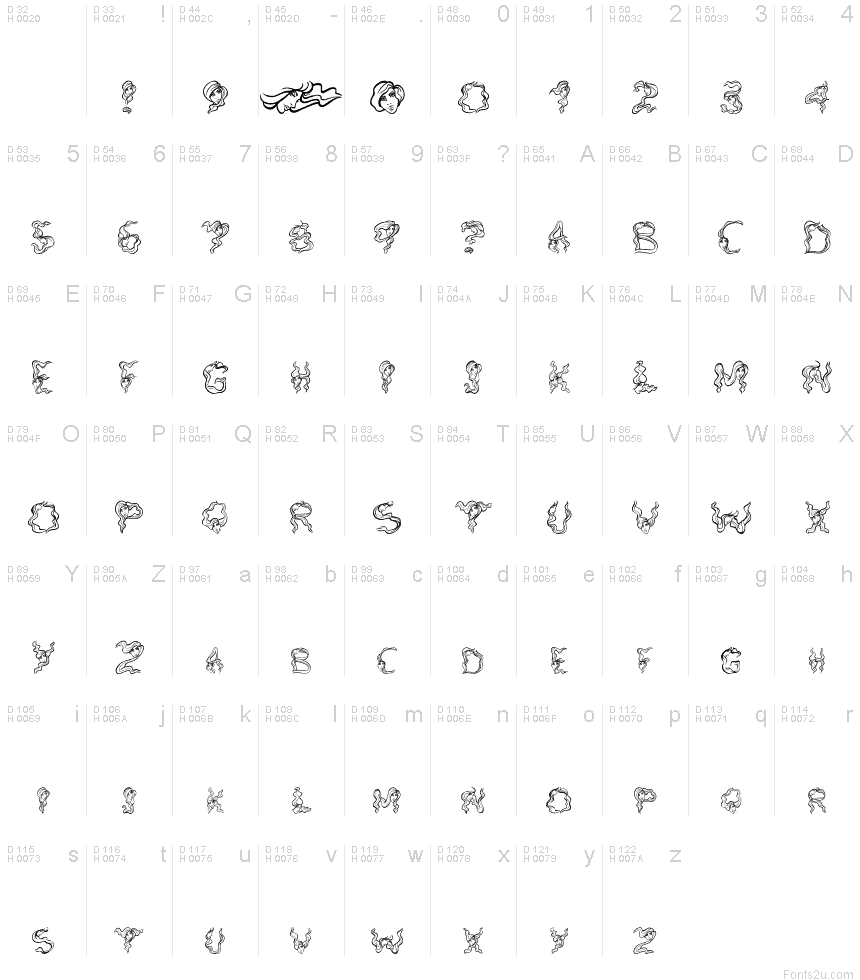
AlphaWomanHair
AlphaWomanHair font by Beeline Fonted by Miss Claude is a free cartoon display typeface that turns every letter into a wild sculpture of flowing hair and curvy silhouettes. The strokes twist, loop, and tangle like ink-drawn locks, giving words a hand-sketched, slightly chaotic energy that still reads clearly at larger sizes. It feels playful and a bit rebellious, like doodles that took over the page and refused to sit still.
Using AlphaWomanHair, you can give titles and logos a bold, character-driven voice that instantly grabs attention. This free font shines on zines, feminist or body-positive posters, beauty or hair salon branding, comic covers, Halloween graphics, and expressive social media art. Set it big for headlines, then pair it with a clean, neutral sans serif for body text so the wild hair shapes can take center stage without overwhelming the rest of your layout.